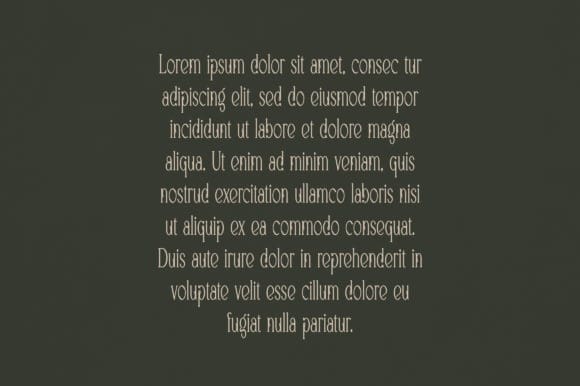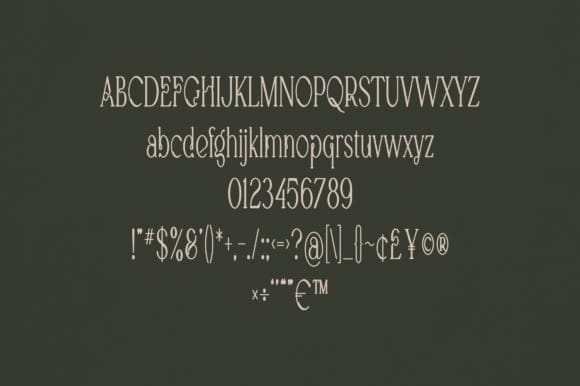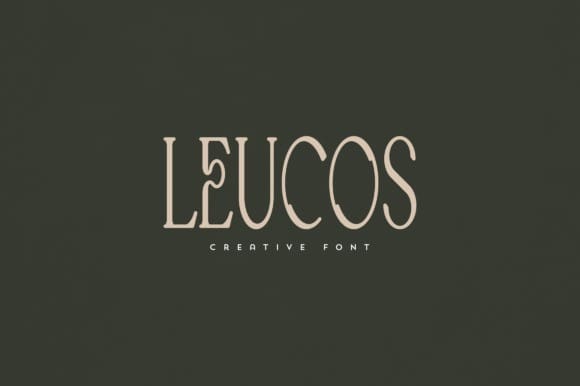
Leucos Font
Leucos Font is an elegant and versatile font that will make your typography truly unique! It will enchant every logo, branding, headline, or plain text!